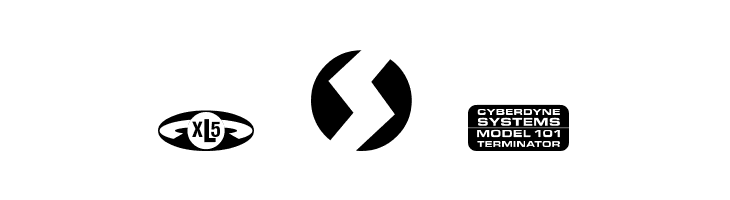
A playful collection of hand-drawn doodle symbols with a whimsical style.
Transit-inspired display font with bold, geometric symbols.
Zodiac symbols in a decorative style, not a traditional font.
A decorative set of musical symbols and icons with artistic flair.
A bold, playful set of expressive and dynamic symbols with a comic book style.
A playful set of bold, circular symbols including stars, arrows, and smiley faces.
A whimsical collection of decorative dingbats featuring playful characters and symbols.
A playful and decorative collection of medical-themed symbols and illustrations.
Ornamental dingbat font with intricate, abstract symbols.
A decorative collection of time-themed dingbats with clock faces and AM/PM symbols.
Abstract, tech-themed dingbat font with bold, decorative symbols.
A symbolic font featuring NASA and space exploration icons.